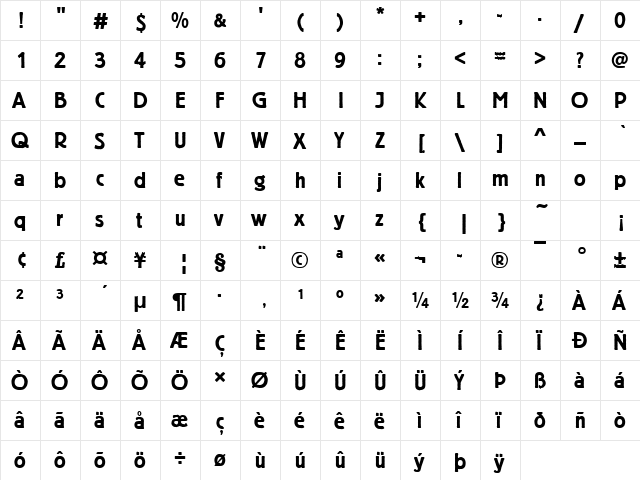
BerlinerGroDDemBol Regular
BerlinerGroDDemBol offers clean, dependable letterforms without strong stylistic allegiance, making it a practical choice for designers who need flexibility.